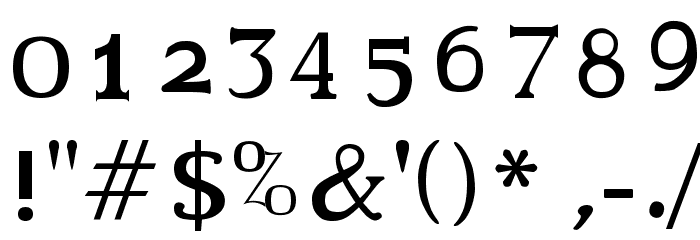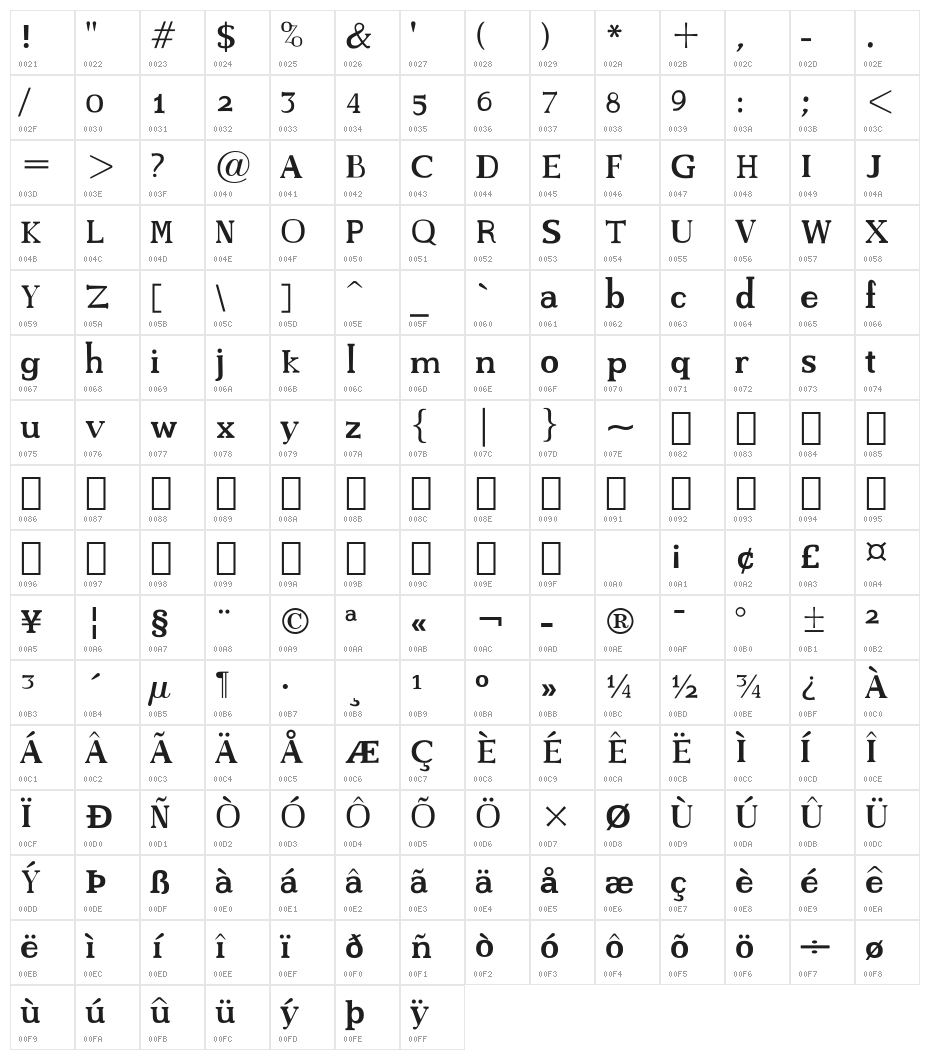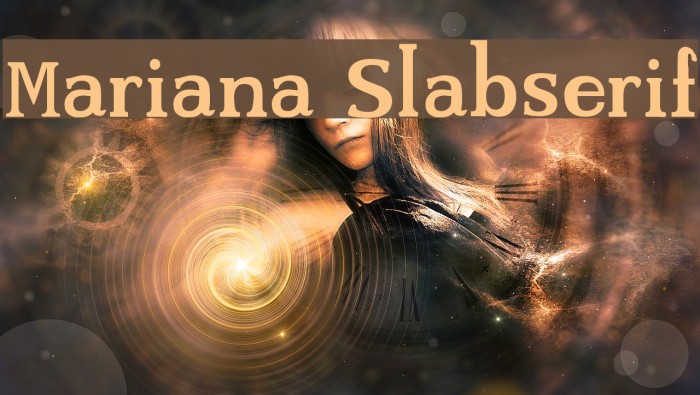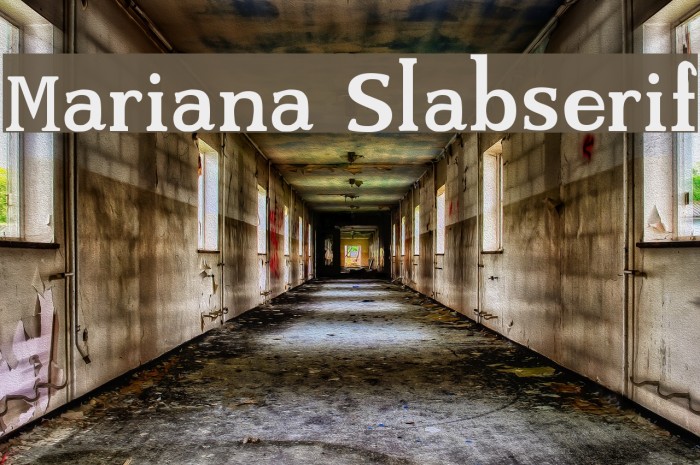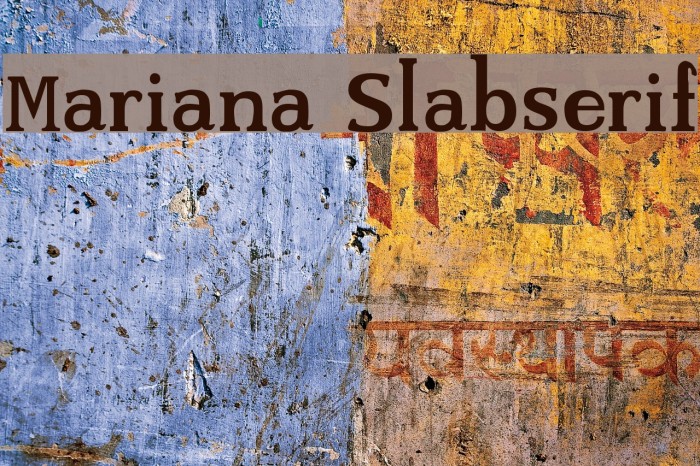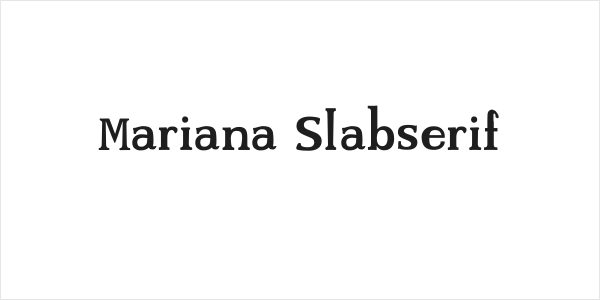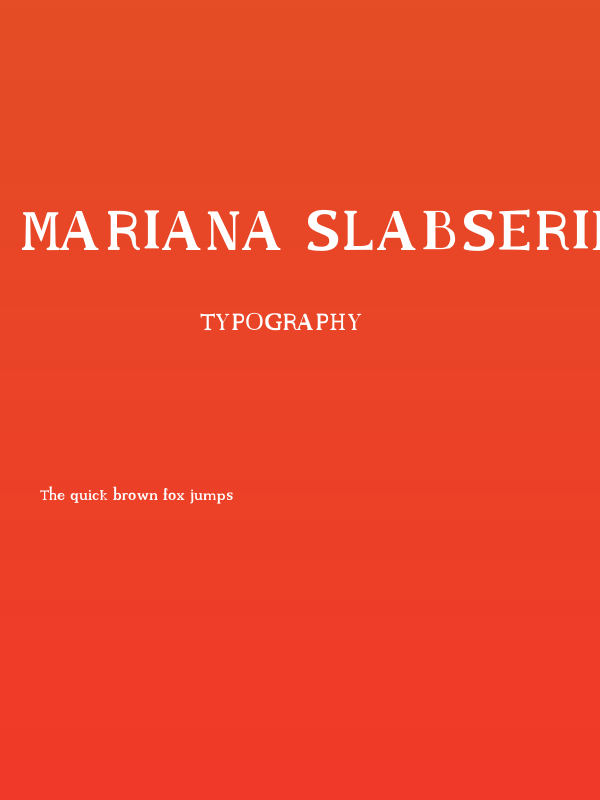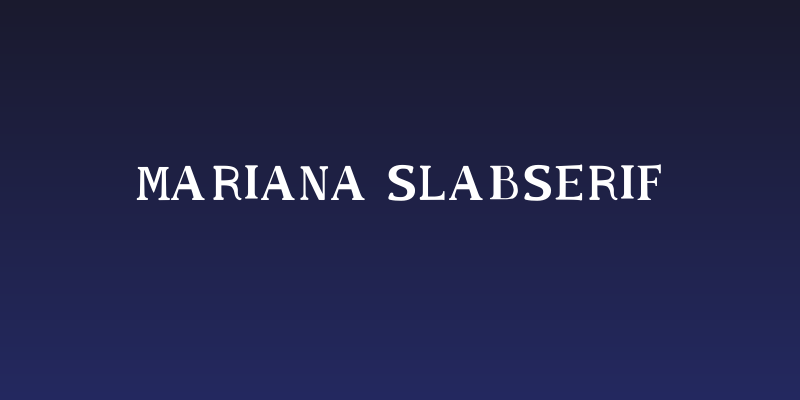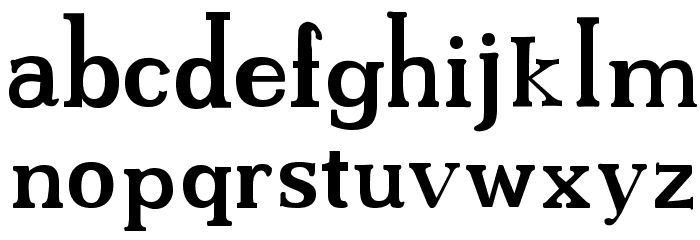
Mariana Slabserif Font
Mariana Slabserif Description
This font features a robust and structured design with pronounced slab serifs that give it a strong and authoritative presence. The uppercase letters are bold and commanding, while the lowercase letters maintain a consistent weight, providing a harmonious balance. The numerals are clear and legible, making them suitable for various applications. Special characters are well-defined, adding versatility to the font's use. The overall design is modern yet retains a classic touch, making it suitable for both contemporary and traditional projects.
Overall StyleModern Classic
Use CaseHeadlines, Logos, Editorial Design
Proposed ProjectsIdeal for branding, headlines, posters, and editorial design where a strong and impactful typeface is needed.